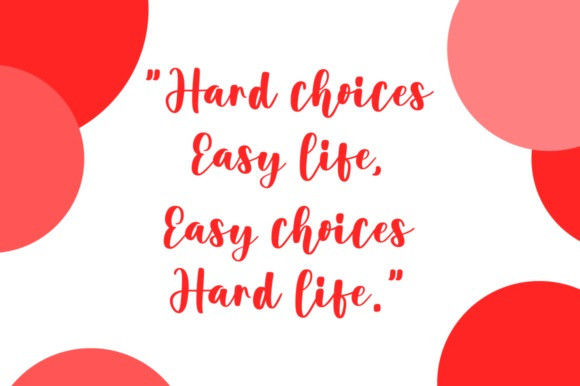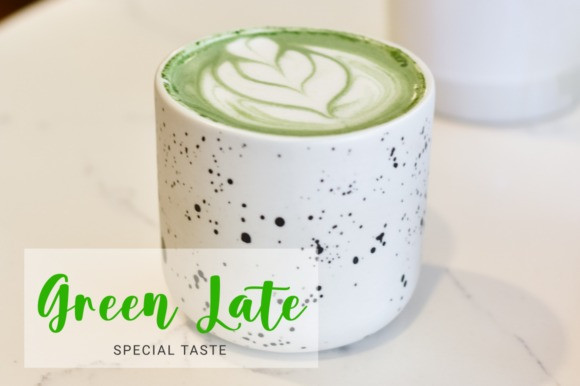
Contraband Monoline Script Font
Introducing a new monoline script called Contraband. This font great for Logotype, Branding Design, Logo Design, Digital Lettering Arts, T-Shirt/Apparel, Poster, Magazine, Signs, Advertising Design, and any vintage design needs.
• 2 Styles: Bold, Rough